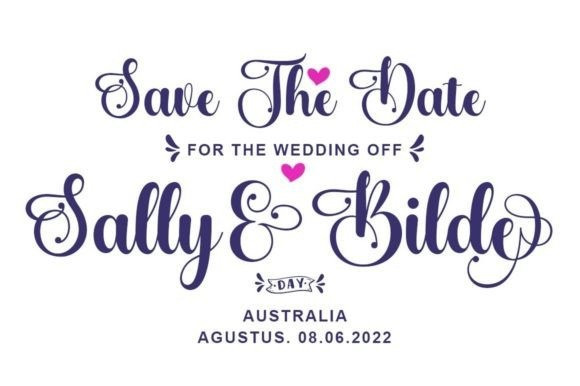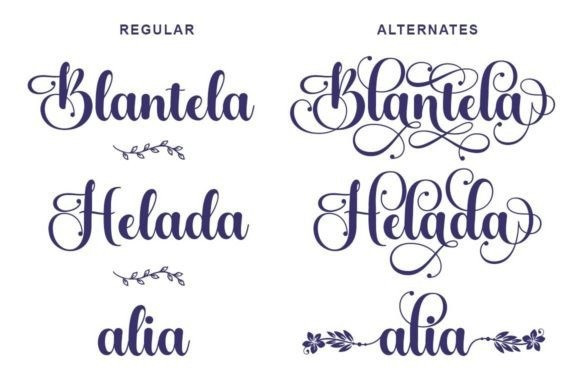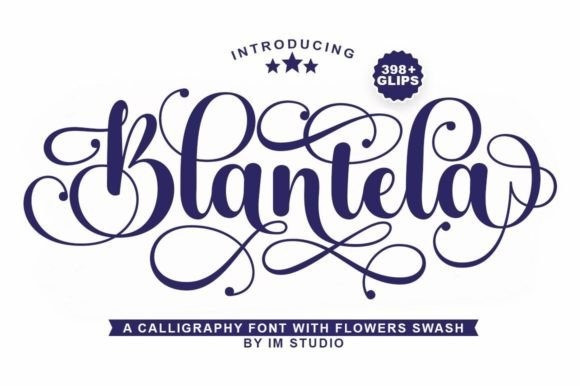
Blantela Script Font
Blantela Script Font is a stylish and refined font suitable for a wide spectrum of applications. From greeting cards to headlines, this font will guarantee a touch of romance to any of your creations!